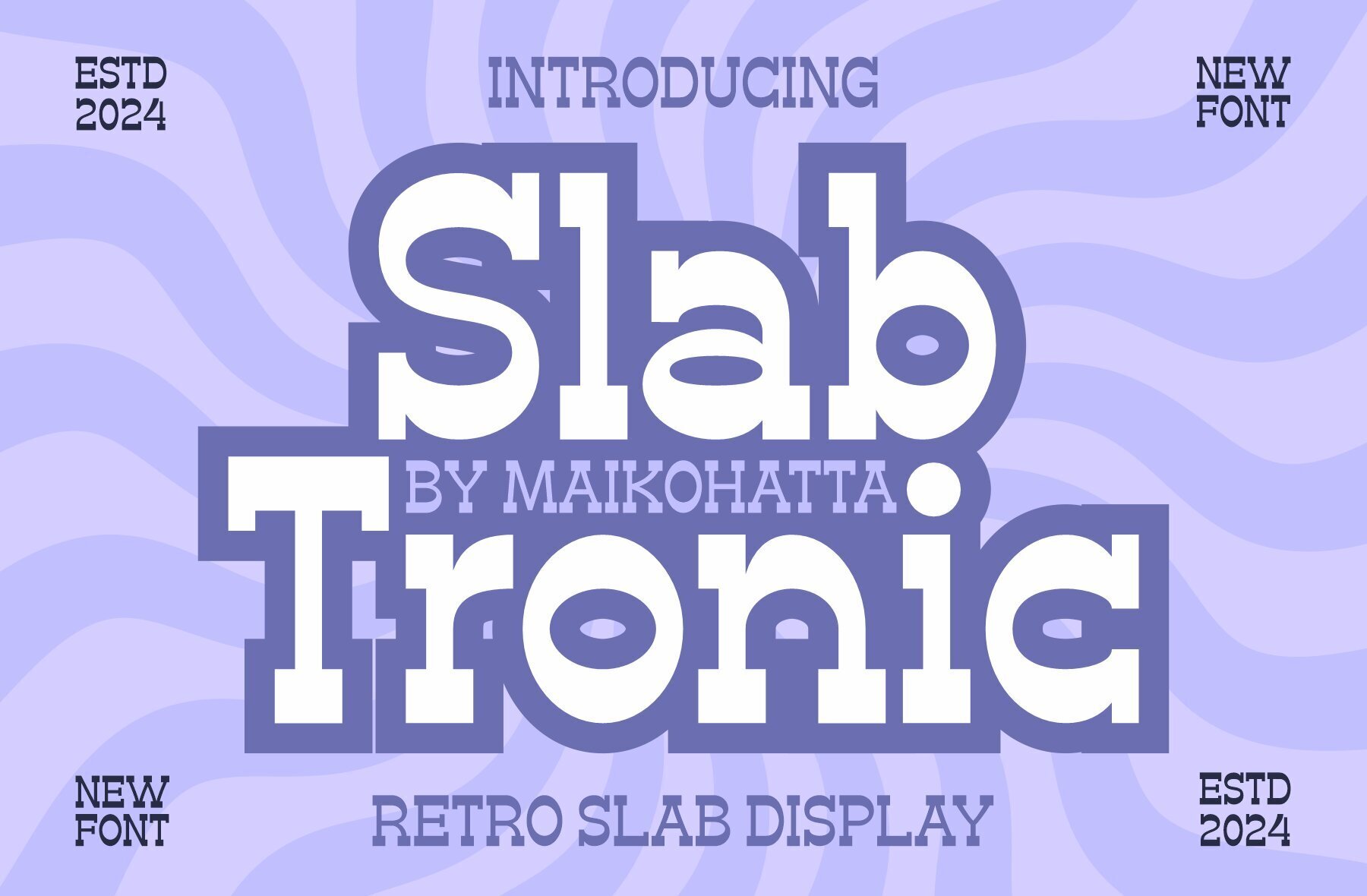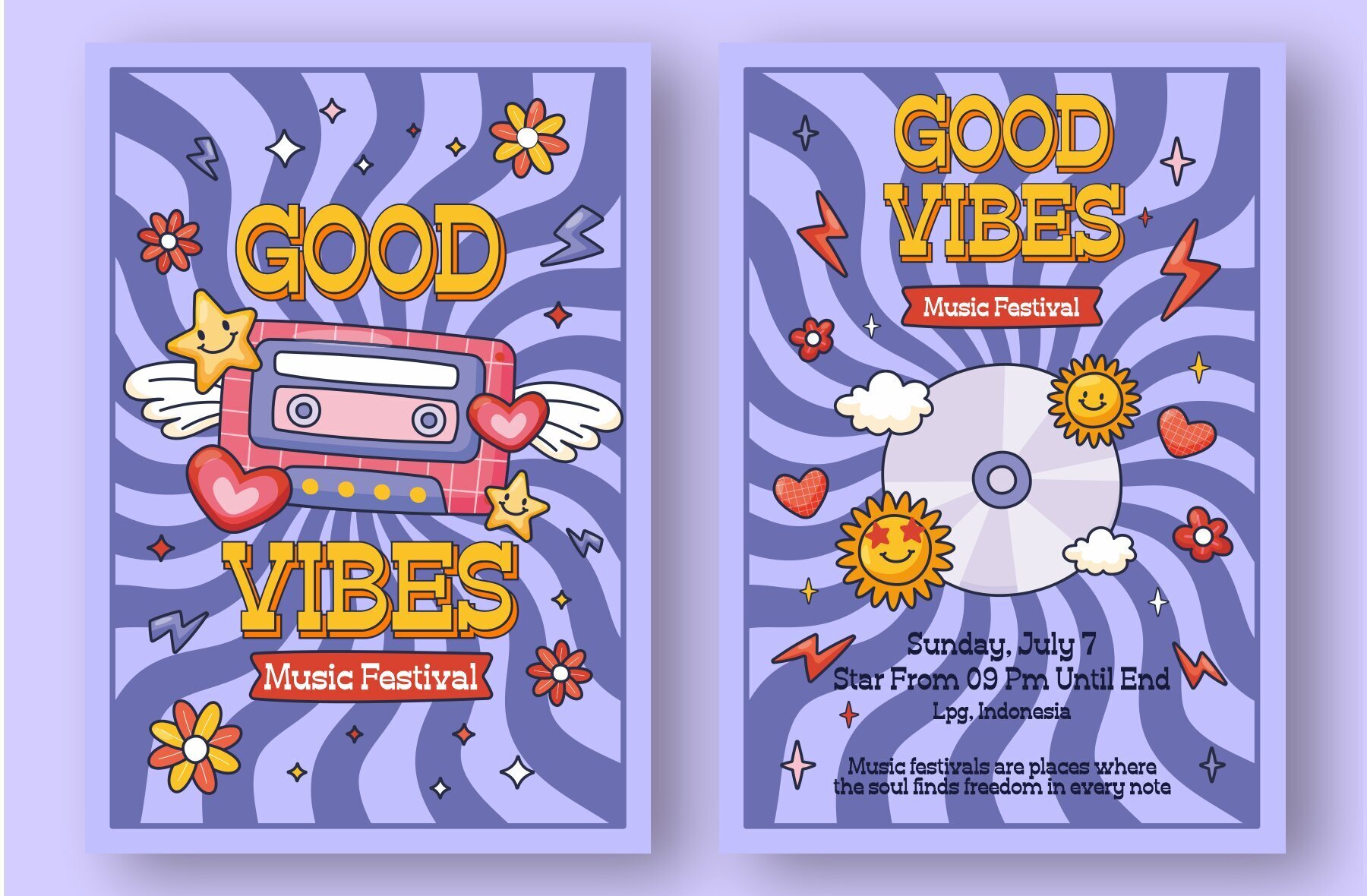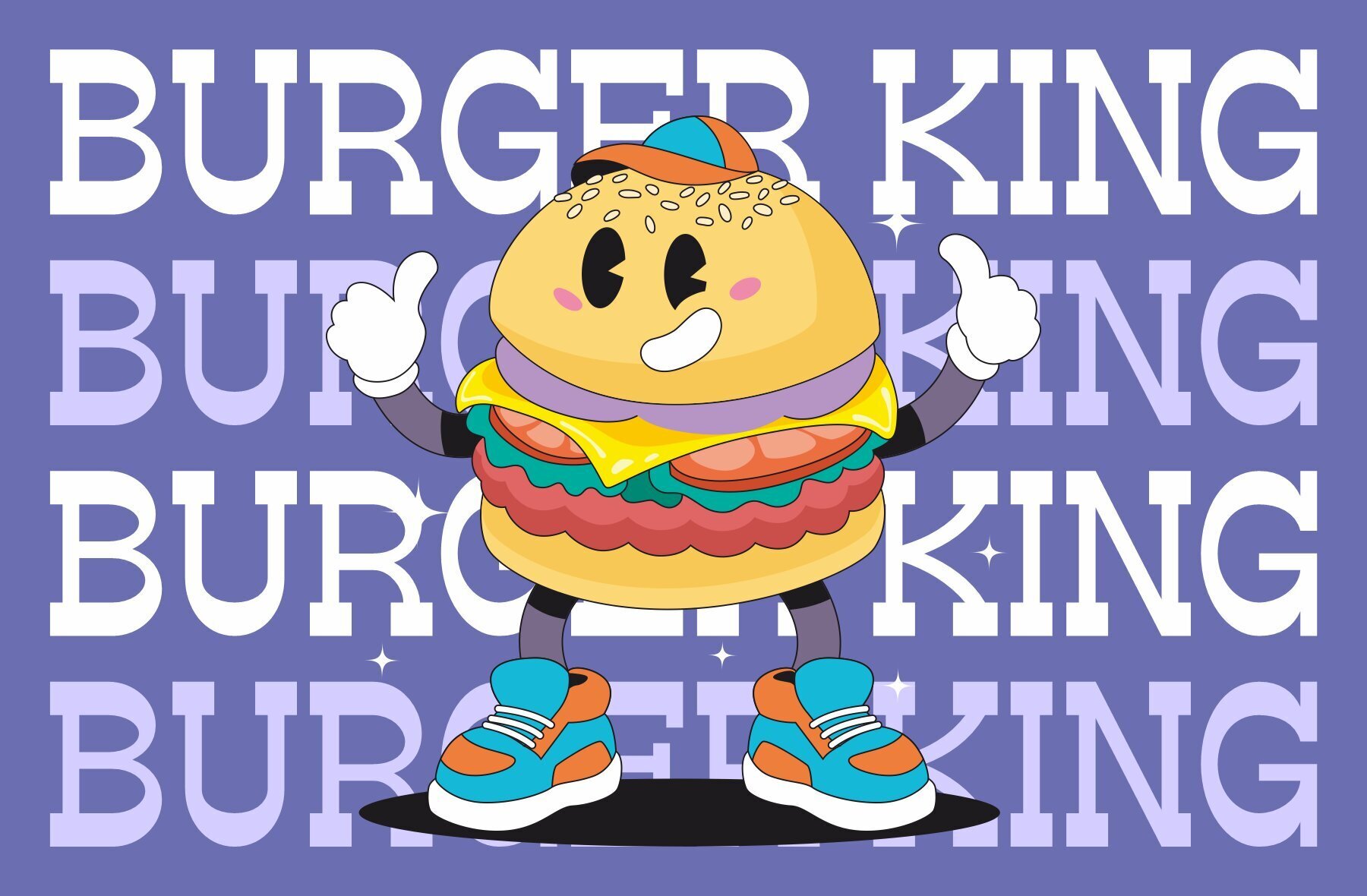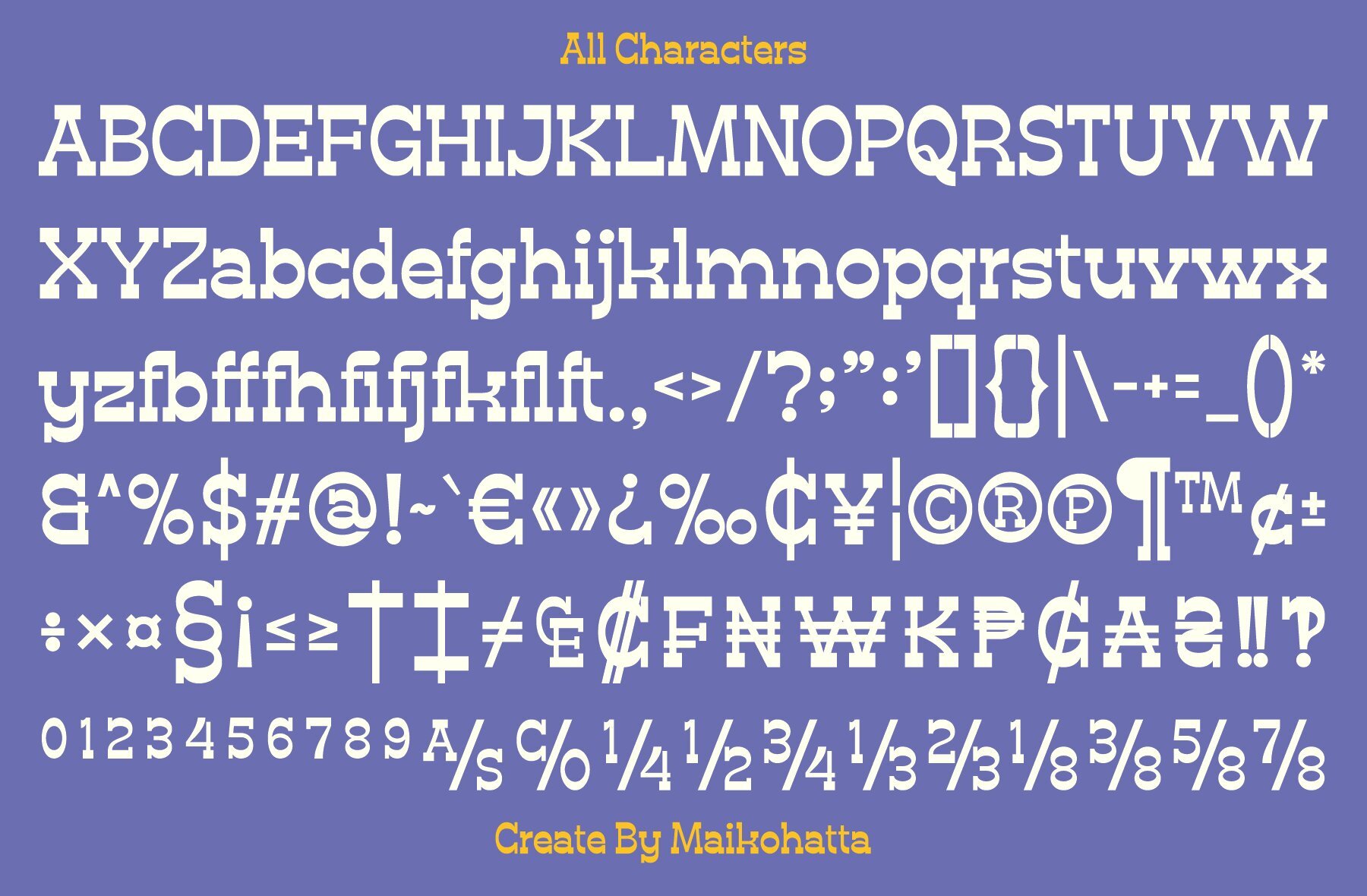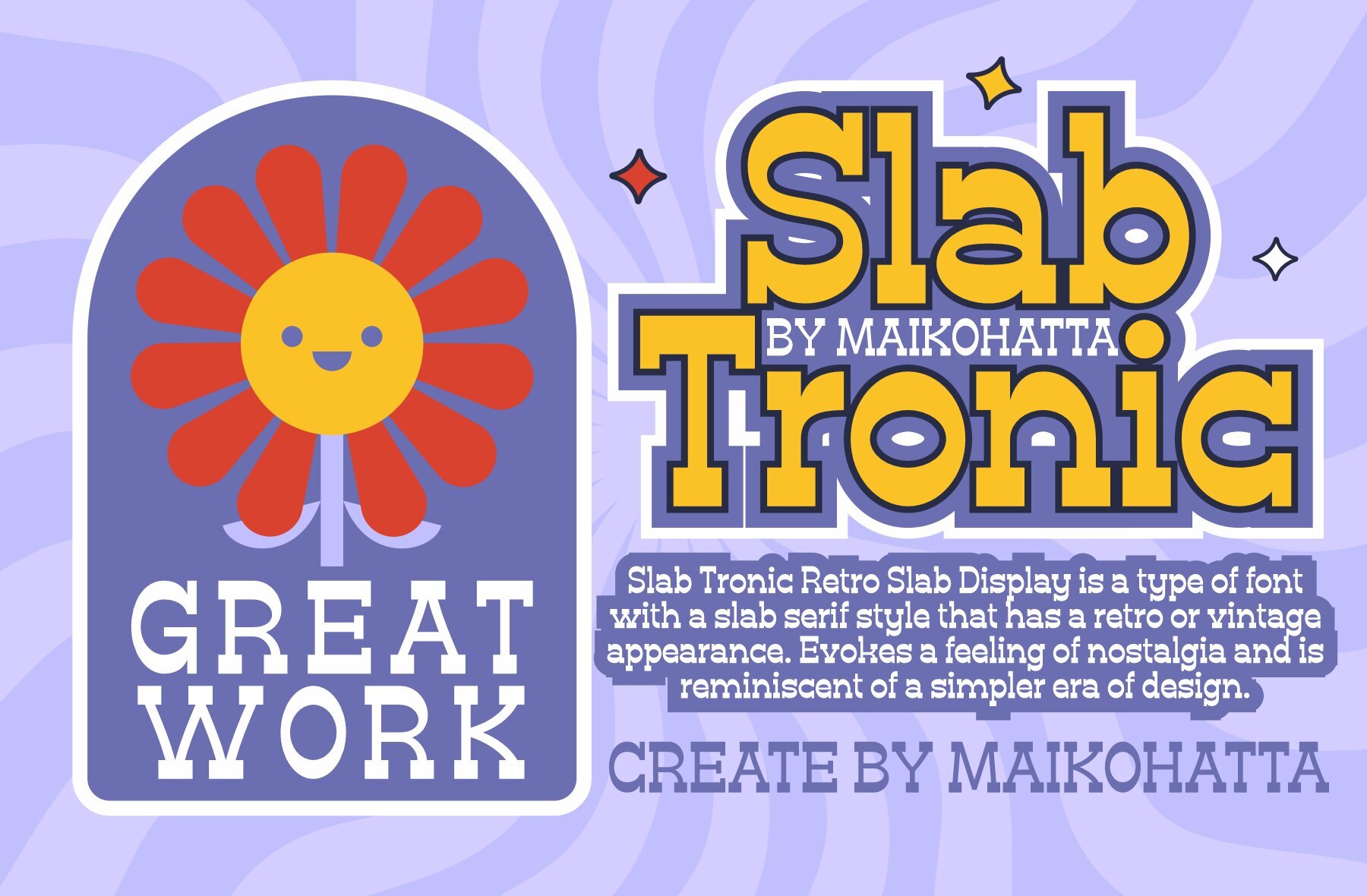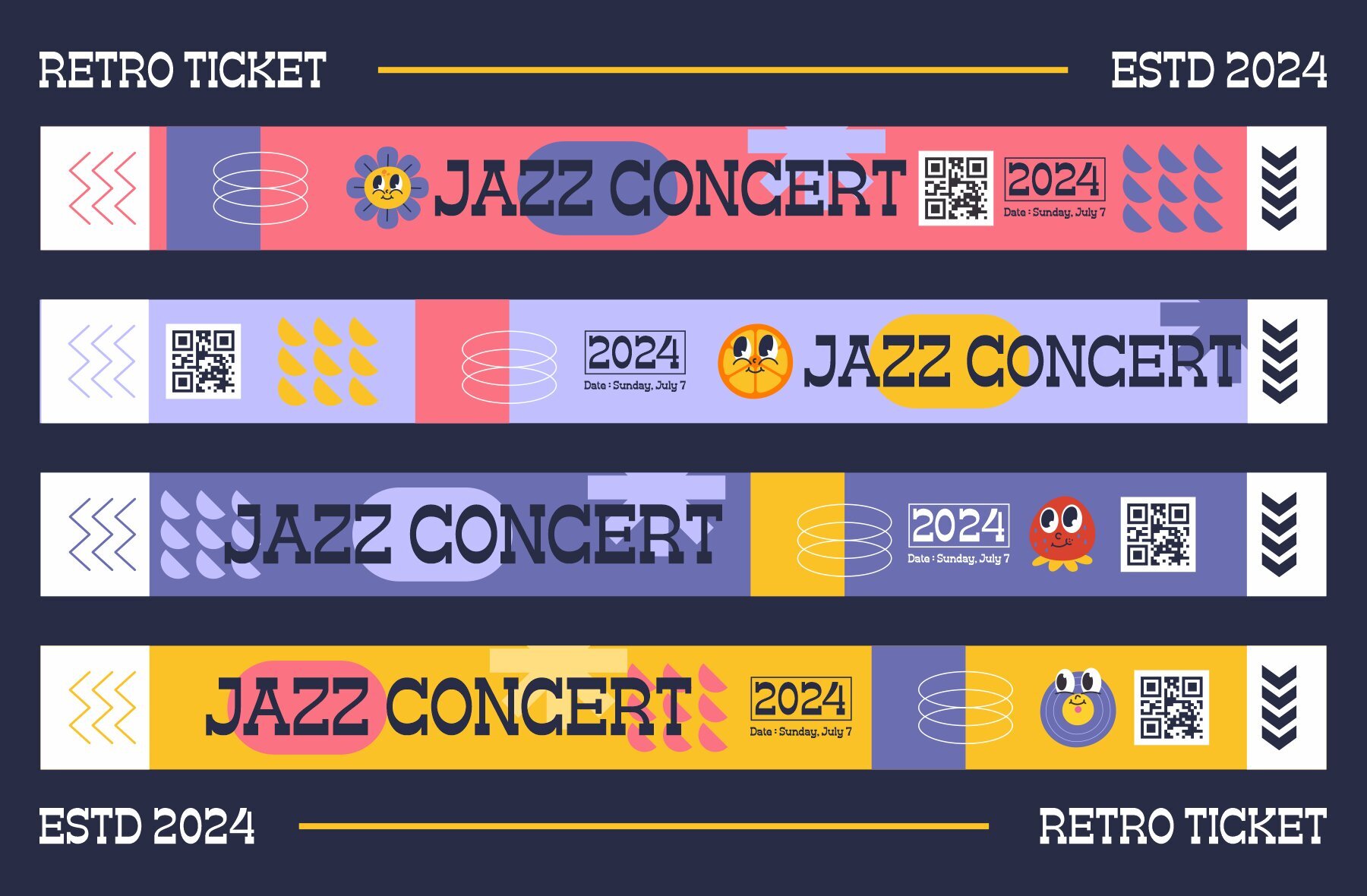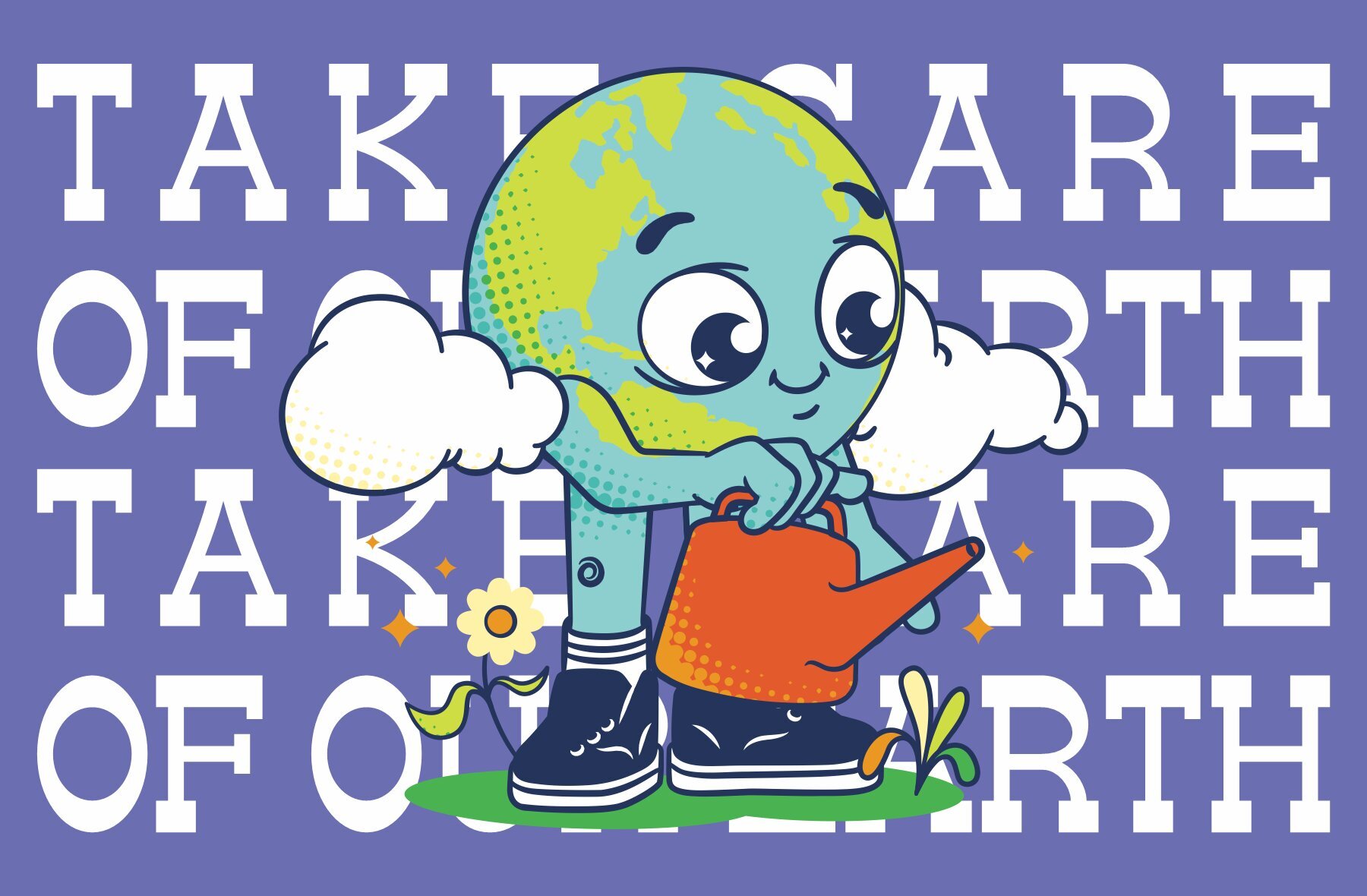
Slab Tronic Font
Slab Tronic
Introducing Slab Tronic - Retro Slab Display with a playful, handwritten style reminiscent of comics and cartoons. This font joyfully captures a light-hearted atmosphere, making it ideal for projects that seek to evoke happiness and cheerfulness. It’s an excellent choice for posters, invitation cards, and promotional materials aimed at younger audiences or anyone seeking a fun, lively vibe.
Use Slab Tronic to add a touch of whimsy to your designs, ensuring your creations stand out with a distinctive, playful character. Its retro, comic-inspired aesthetic makes it perfect for creative projects looking to convey a sense of joy and excitement.